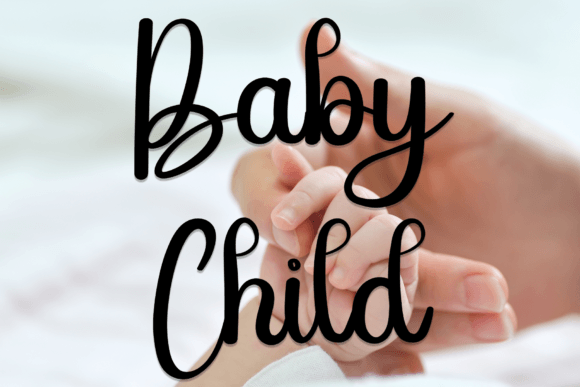
Welcome to the world of Baby Child font, where handwritten scripts merge with charm and elegance to create a truly captivating experience. Step into the realm where words take on new meaning, flowing smoothly from pen to paper, leaving a trail of enchanting aesthetics in their wake. Let Baby Child be your guide as you embark on a lettering journey that will leave a lasting impression.
Baby Child, a script font with a touch of playfulness, makes dreams a reality. Its sweet and smooth lines dance across the page, evoking a sense of joy and romance perfect for wedding invitations, cards, and any project seeking a personal touch. Whether you're a seasoned designer or just starting your creative journey, Baby Child will effortlessly elevate your designs with a touch of magic.
Unleash your creativity and let your ideas flourish with Baby Child. Its versatility lends itself to a symphony of projects, from heartwarming wedding invitations to playful kids' birthday cards, elegant logos that command attention, and social media posts that leave an unforgettable mark. Dive into a world of endless possibilities, where Baby Child transforms ordinary words into works of art.
With Baby Child, you're not just downloading a font; you're opening the door to a world of endless expression. Its remarkable beauty and enchanting aura will captivate your audience, leaving them spellbound by your creative genius. Don't settle for ordinary; choose Baby Child, the font that ignites passion and fuels imagination.
So, let the journey begin! Embrace the allure of Baby Child and witness the transformation of your designs. Let your creativity soar as you explore the boundless possibilities that await you. With Baby Child as your companion, you'll leave an indelible mark on the world, one beautiful letter at a time.